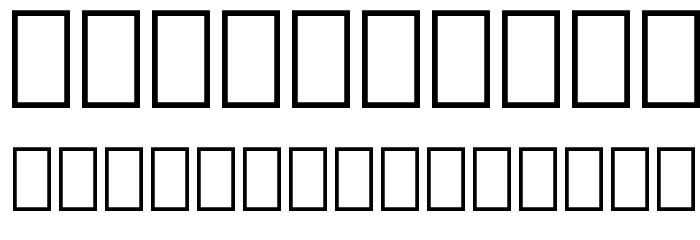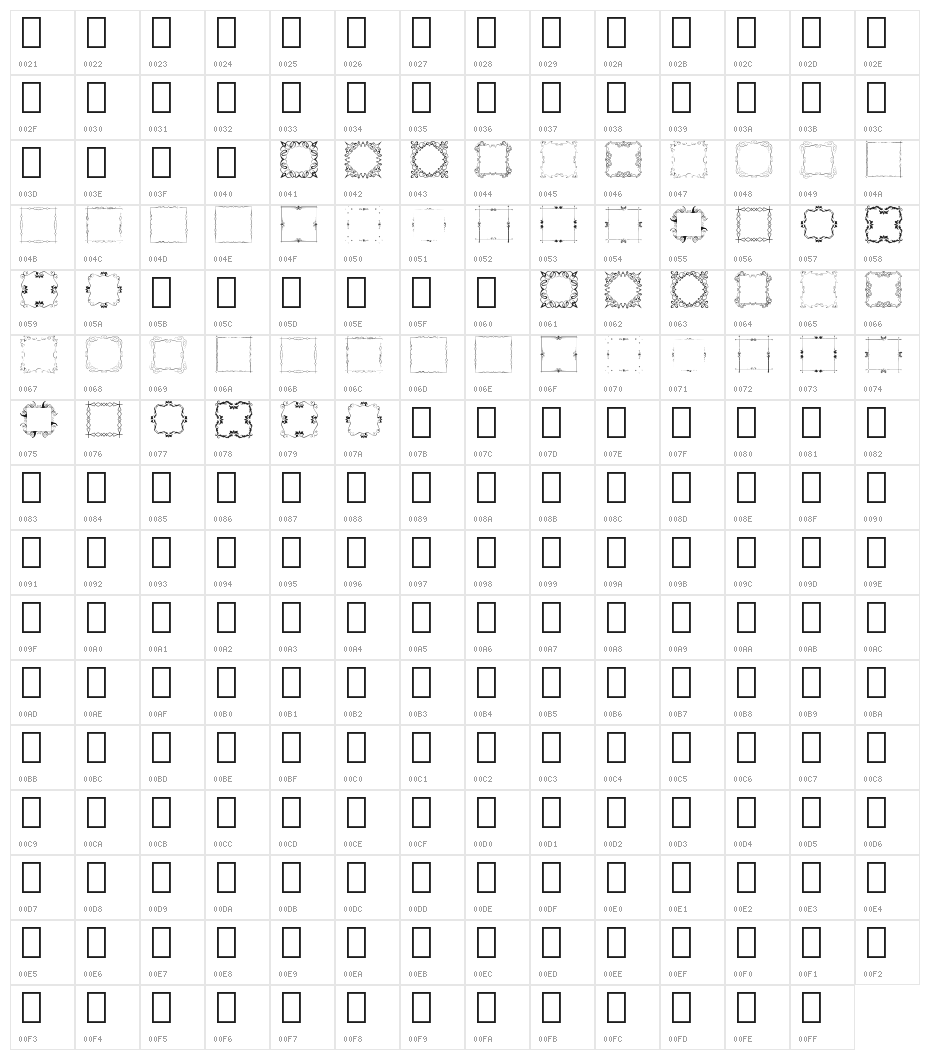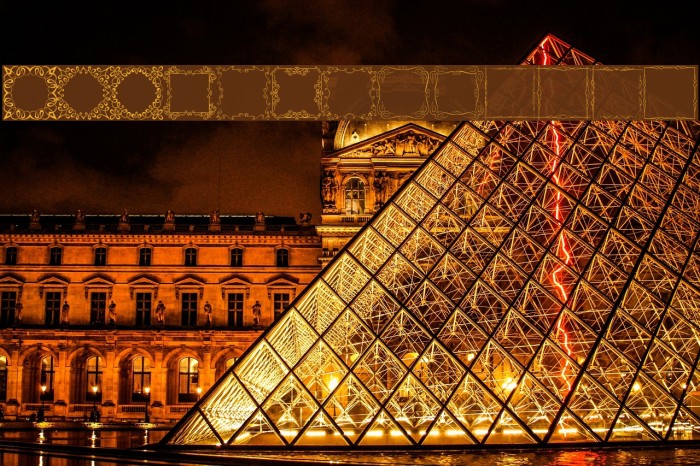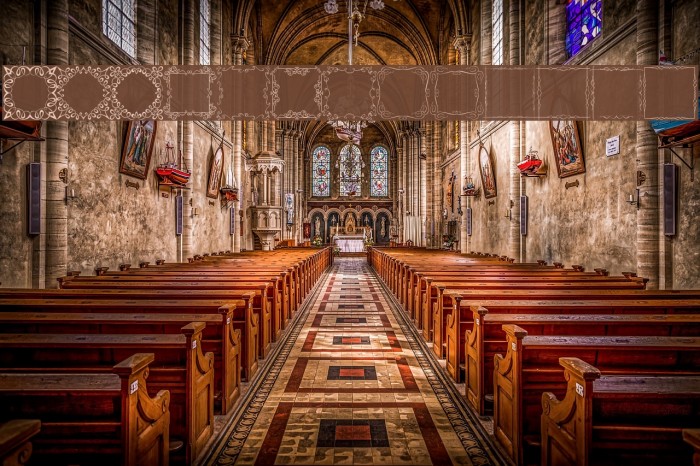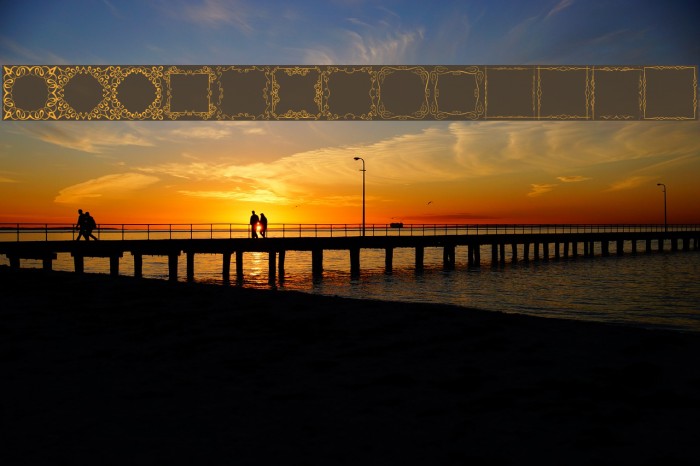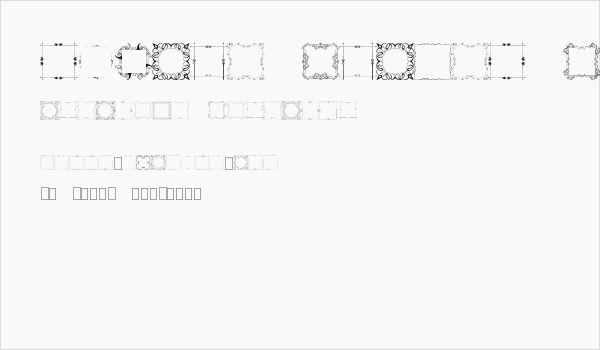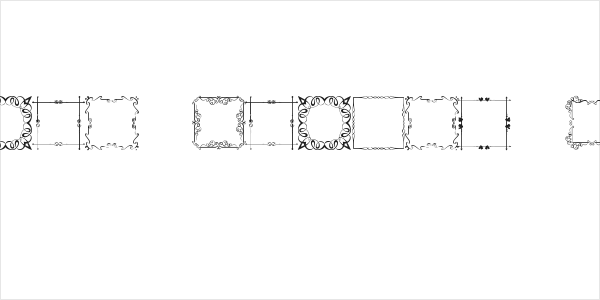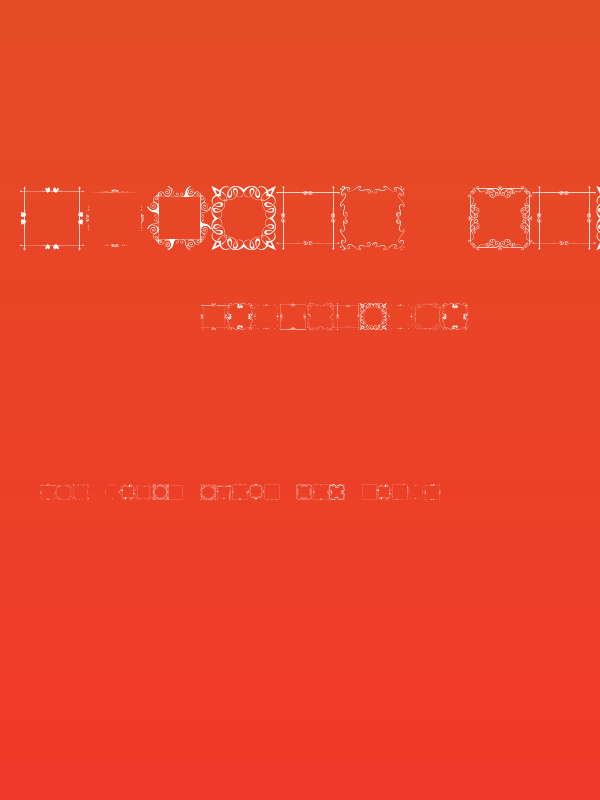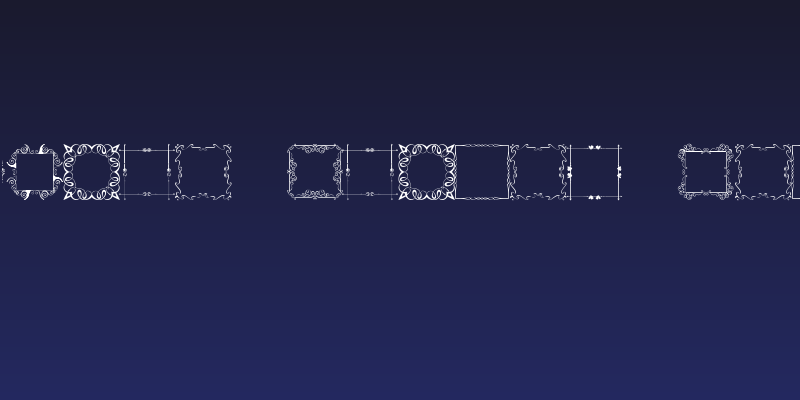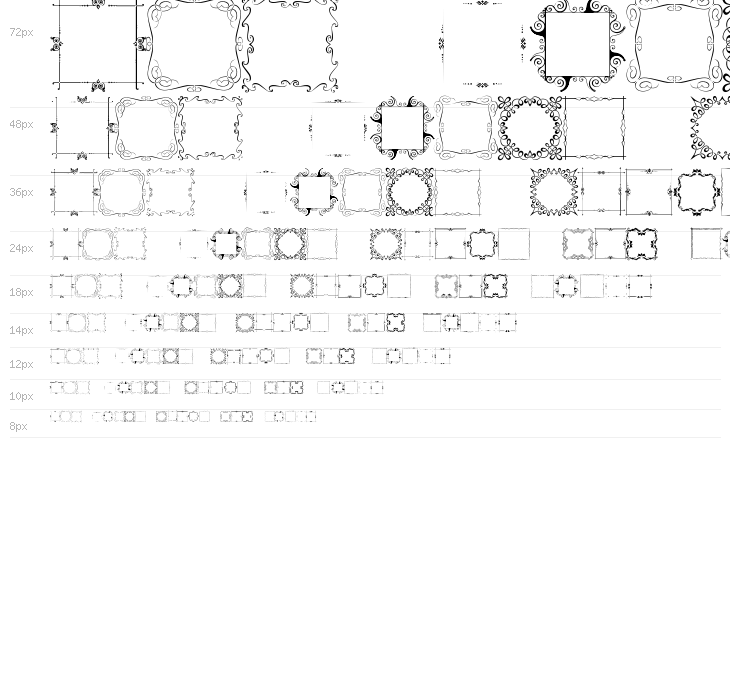
Square Frames Demo Font
Square Frames Demo Description
A decorative and display font consisting of various ornate and simple square frames, each character represented by a unique border design ranging from intricate flourishes to plain geometric rectangles. The style varies from highly detailed vintage frames to minimalistic modern outlines, offering a wide range of visual effects.
| Overall Style | Decorative, Vintage, Modern (depending on frame) |
| Use Case | Borders, Frames, Decorative elements, Not for text |
| Proposed Projects | Invitations, certificates, scrapbooking, decorative headings, digital art, graphic design accents. |